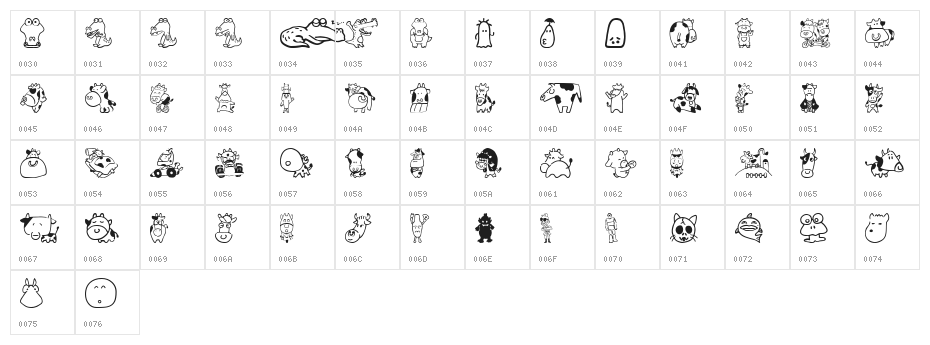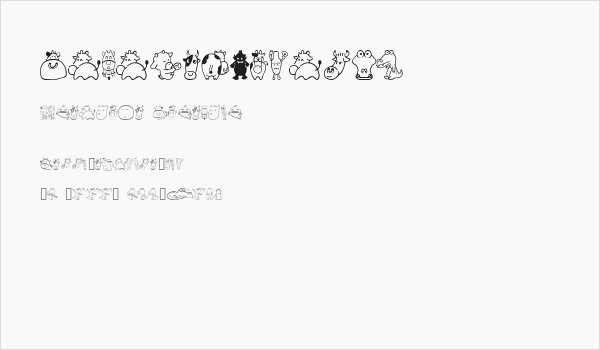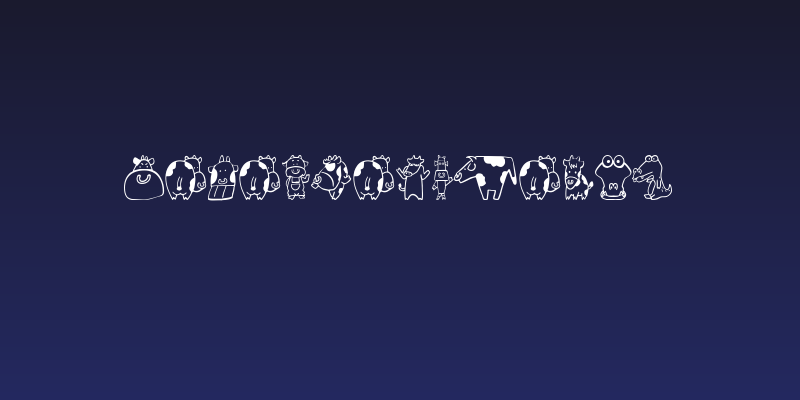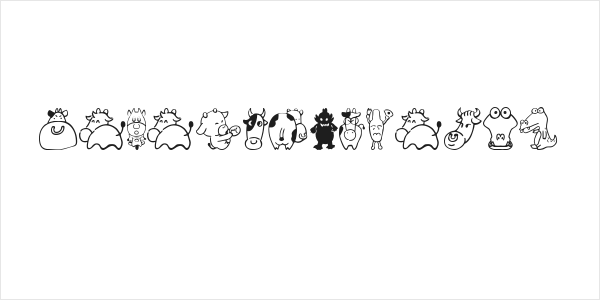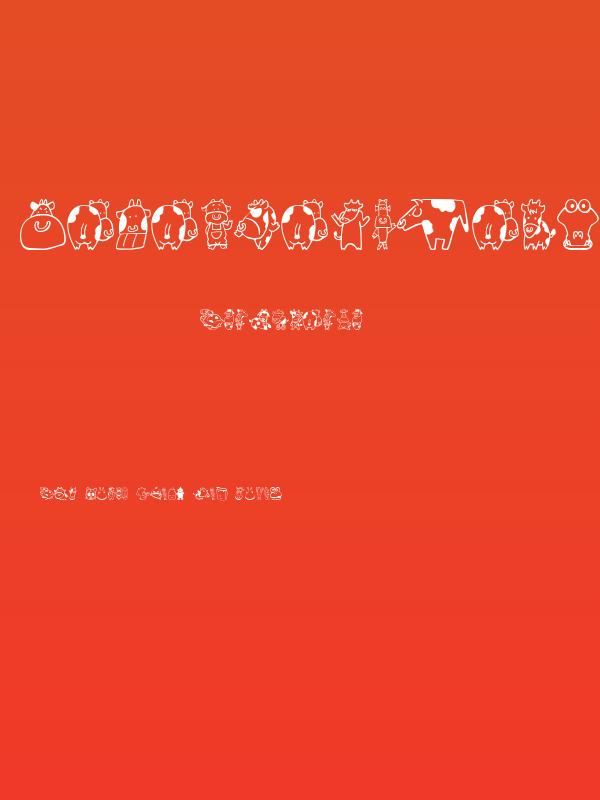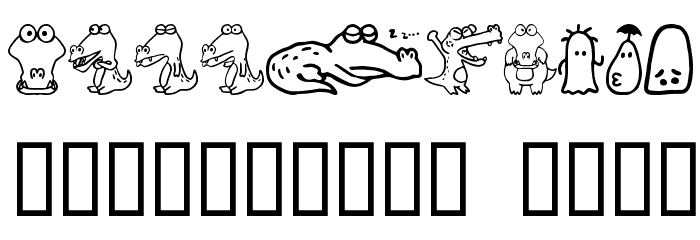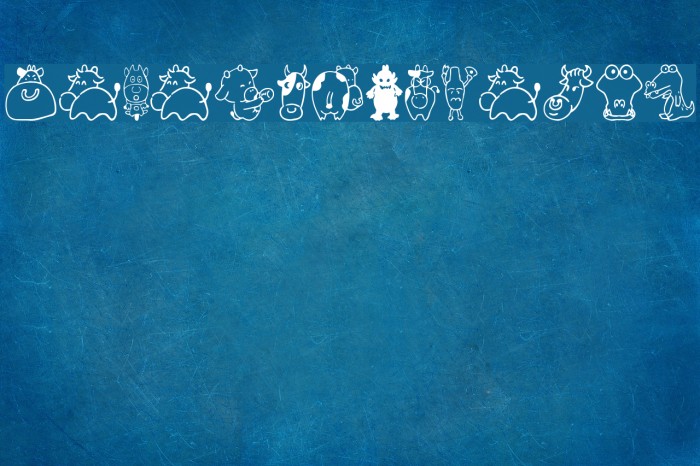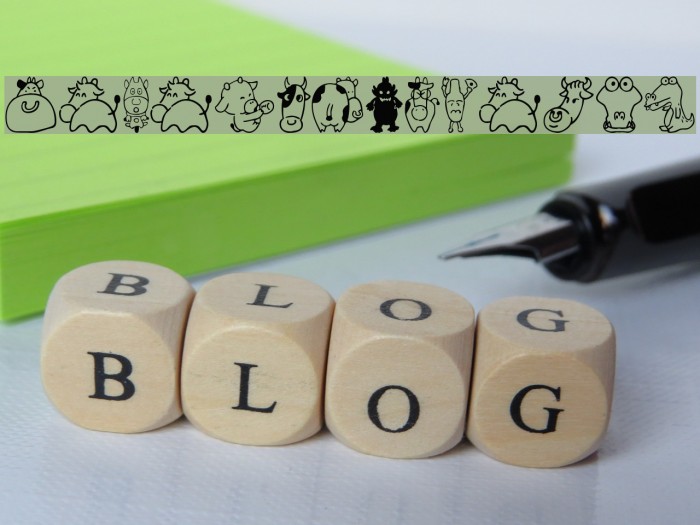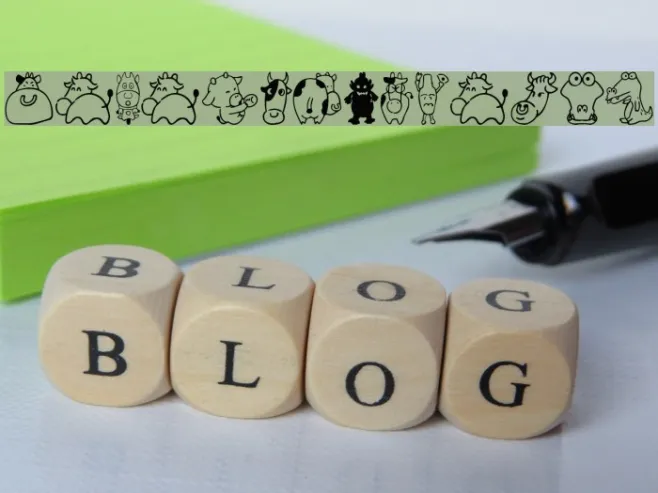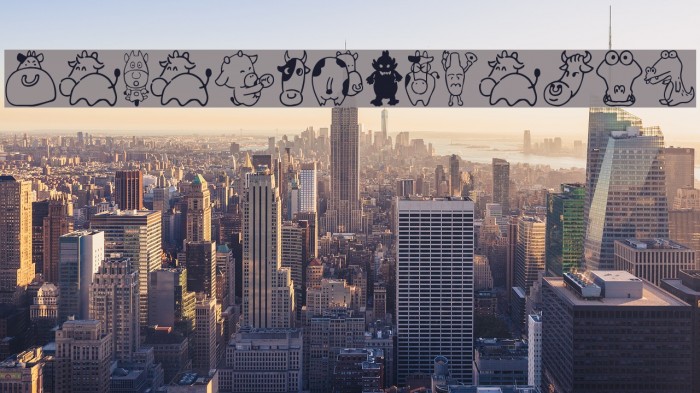
SakabeAnimal03 Font
SakabeAnimal03 Description
This font is a whimsical and playful collection of animal-themed characters, each uniquely designed with cartoon-like features. The characters are highly detailed, showcasing a variety of animals in humorous and imaginative poses. The style is illustrative and decorative, making it ideal for projects that require a fun and engaging visual element. The characters are bold and expressive, with a hand-drawn quality that adds to their charm. The font does not follow traditional letterforms, instead offering a series of unique illustrations that can be used creatively in design projects.
| Use Case | Logos, Illustrations, Creative Design |
| Proposed Projects | Ideal for children's books, playful branding, educational materials, and creative design projects. |